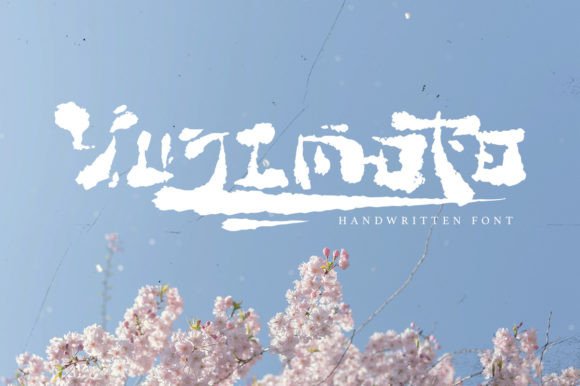
Dive into the realm of artistic expression with Yujimoto, a contemporary brush display typeface that dances across the digital canvas with grace and elegance. Inspired by the rich tapestry of traditional Japanese calligraphy, Yujimoto captures the essence of a talented artist's hand, transforming words into breathtaking visual masterpieces.
Step into a world where boldness and power converge, where every letter carries the weight of a brush stroke, commanding attention and leaving an indelible mark on the hearts of your audience. Yujimoto's captivating curves and dynamic flourishes evoke a sense of movement and energy, bringing life to your designs and leaving readers spellbound.
With Yujimoto as your creative ally, you'll unlock a treasure trove of possibilities. Craft eye-catching headlines that demand attention, captivating posters that ignite imaginations, and social media posts that leap off the screen, leaving an unforgettable impact. Yujimoto's versatility extends beyond the digital realm, making it a stunning choice for print projects as well. Create business cards that exude professionalism, brochures that radiate elegance, and invitations that hint at the grandeur of the event to come.
In the realm of Infusible Ink, Yujimoto shines as a beacon of creativity. Watch as your designs seamlessly transfer onto a variety of surfaces, creating vibrant and durable masterpieces that endure the test of time. Unleash your artistic flair and transform ordinary objects into extraordinary works of art, adding a touch of personalized magic to your everyday life.
Yujimoto is more than just a font; it's an invitation to embark on a journey of self-expression, to explore the depths of your creativity, and to leave a lasting impression on the world. With each stroke, you'll feel the power of Yujimoto propelling your ideas forward, transforming them into tangible realities that captivate and inspire.